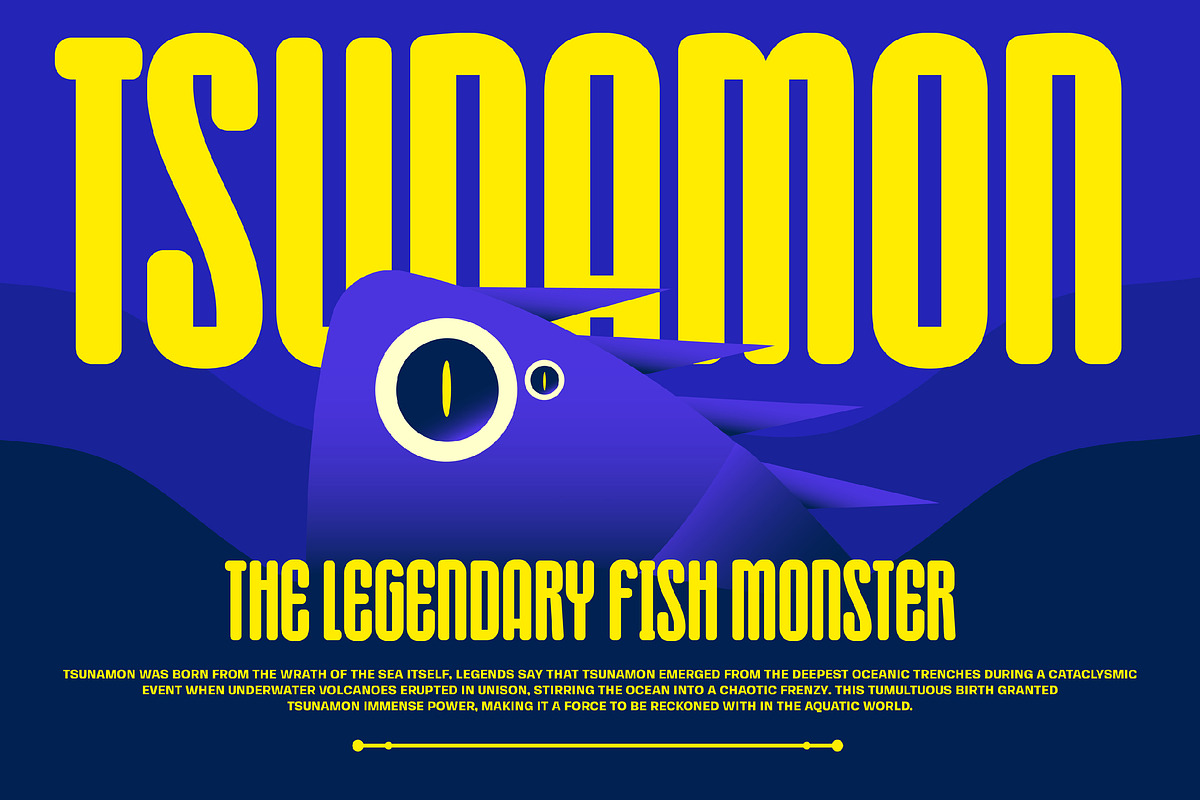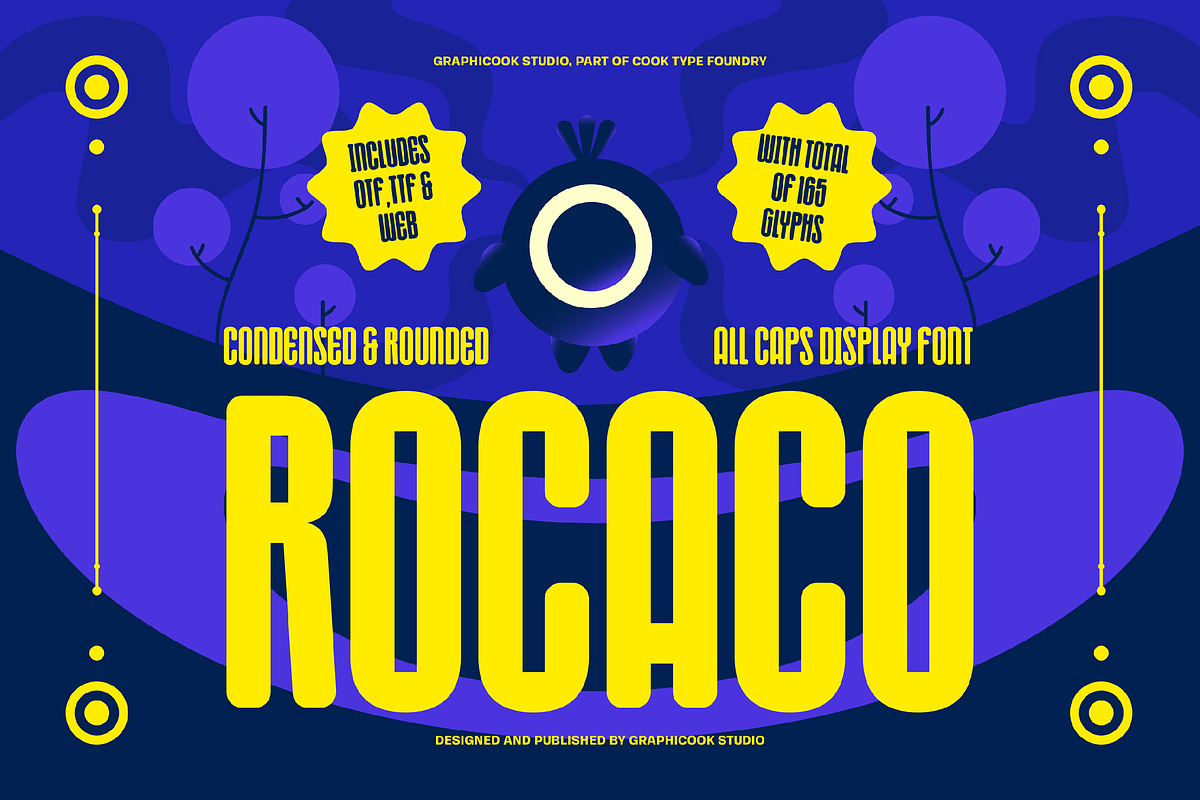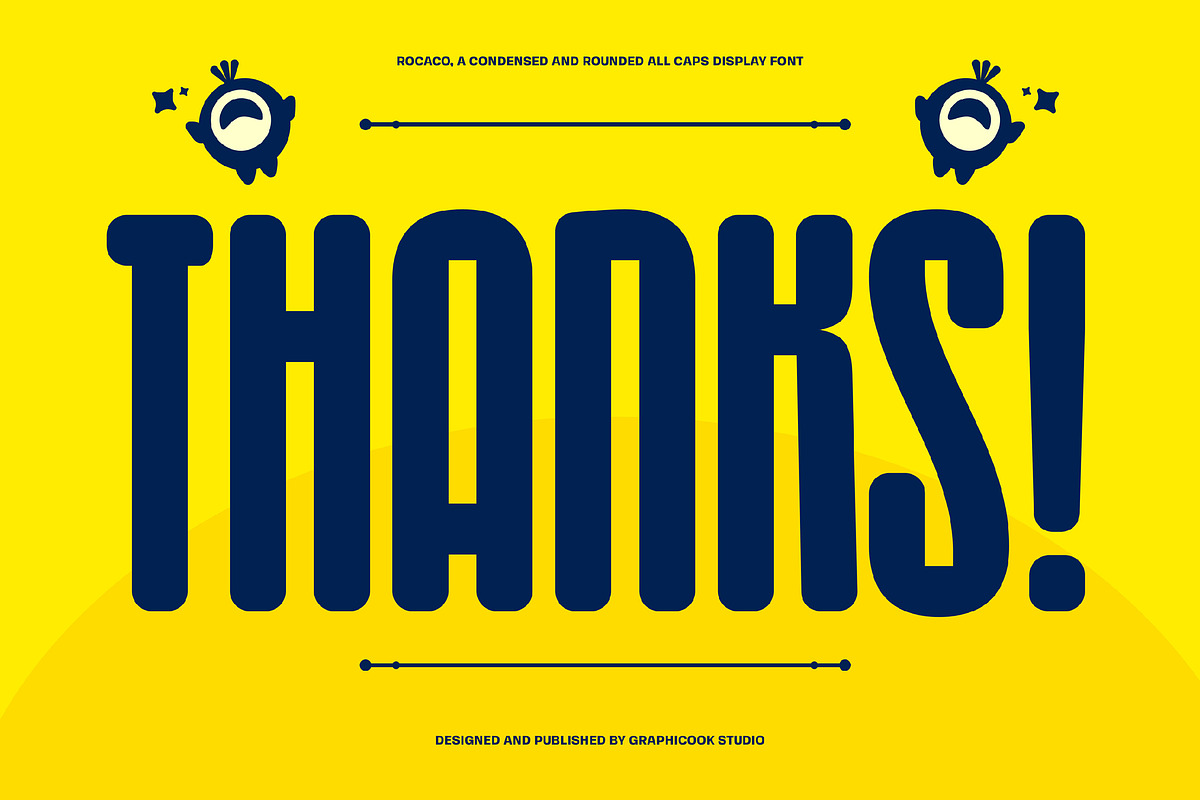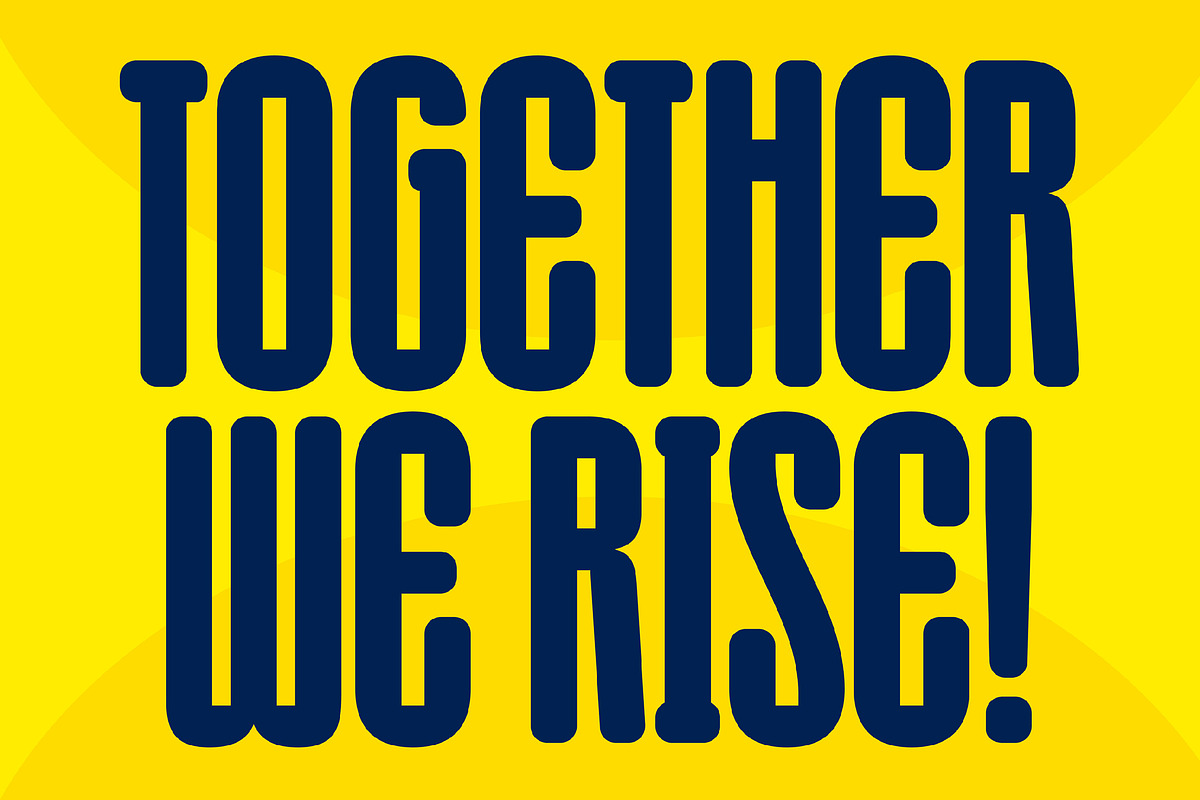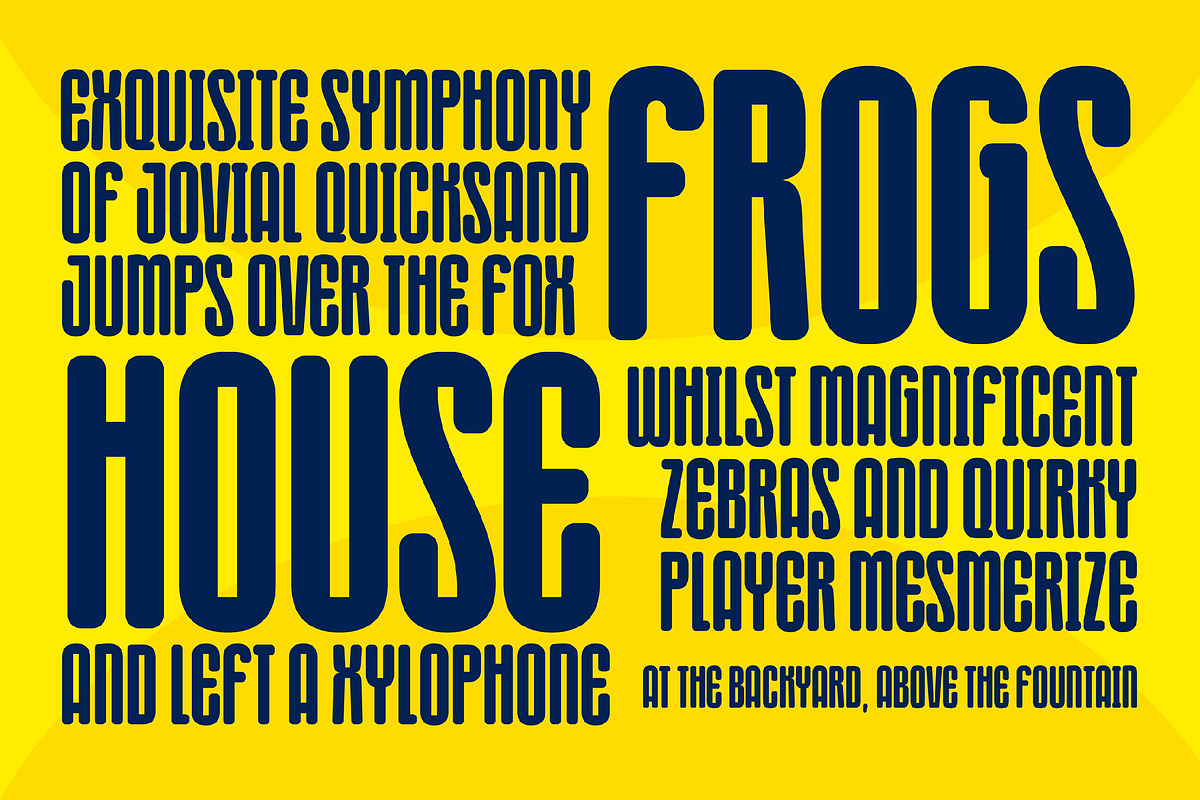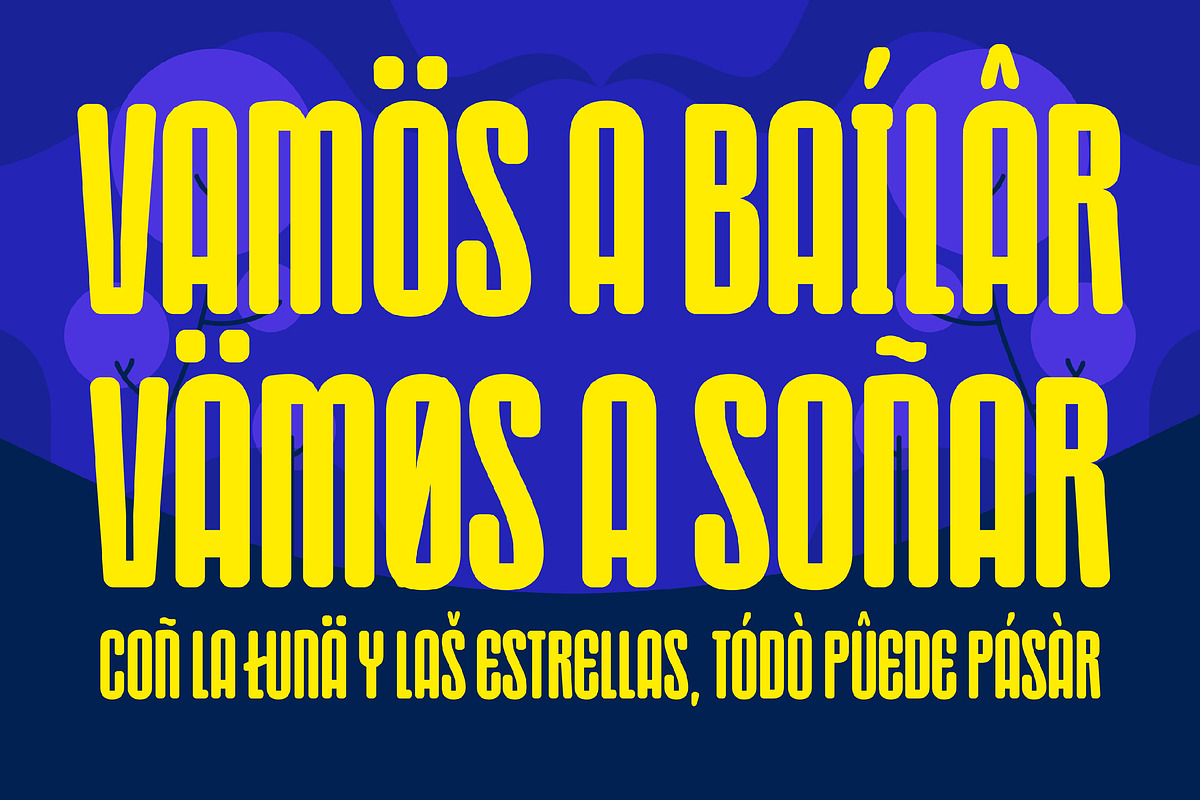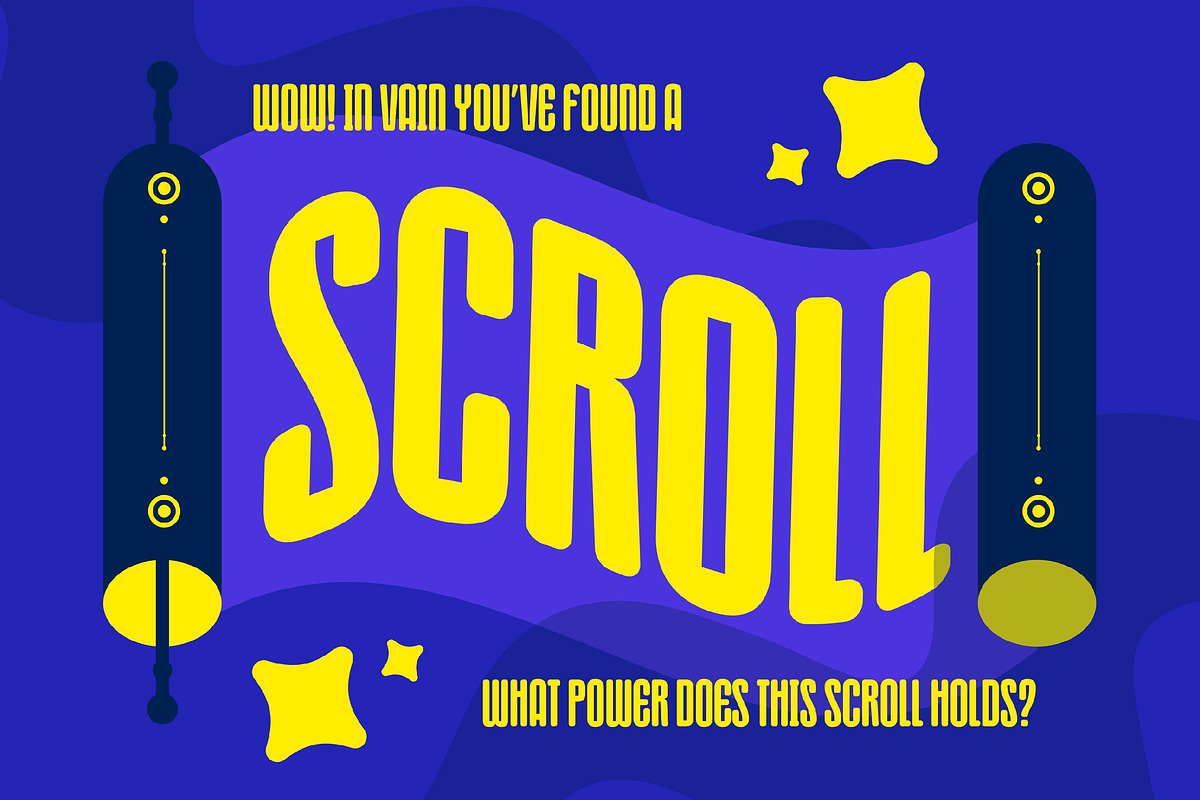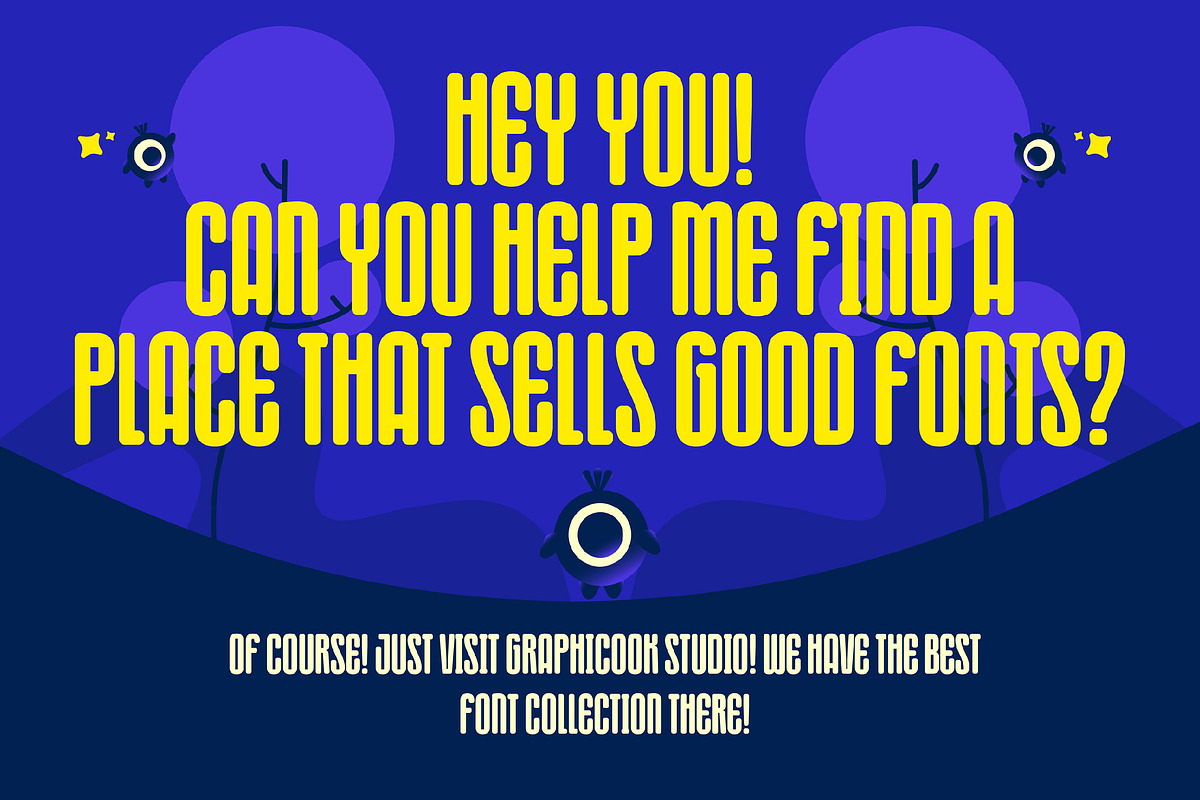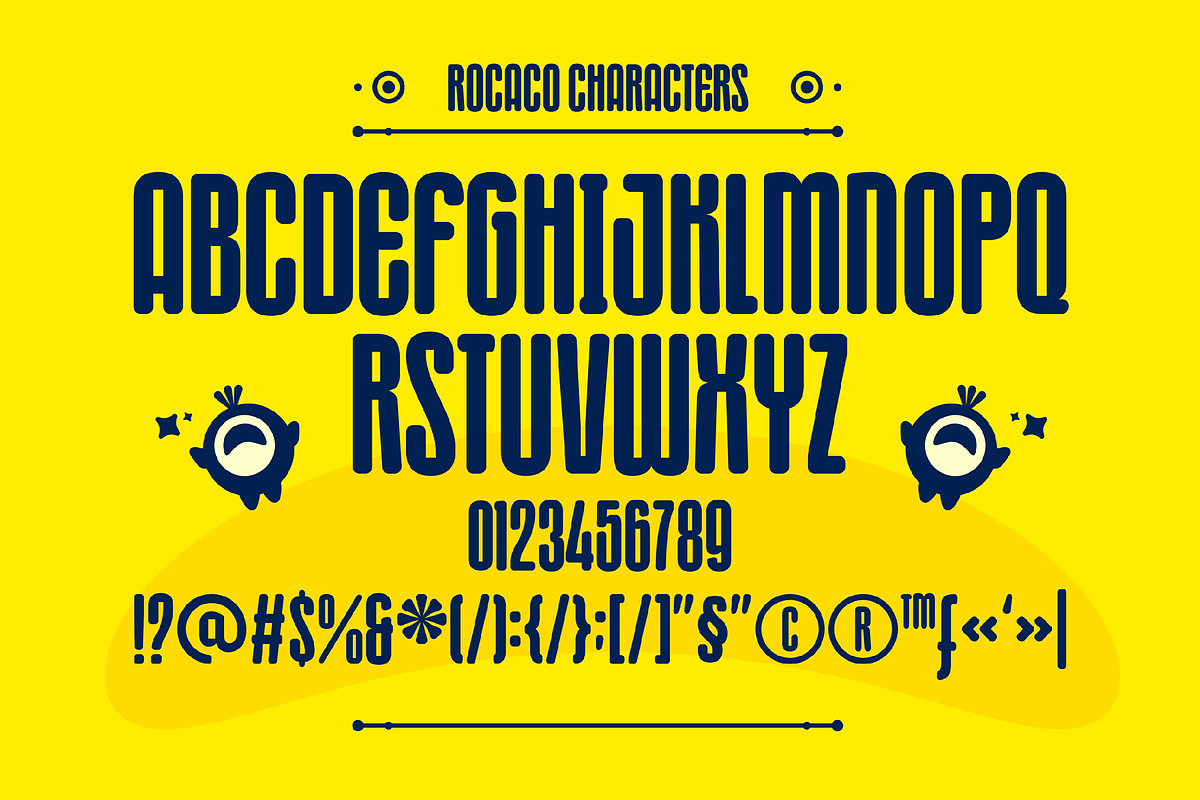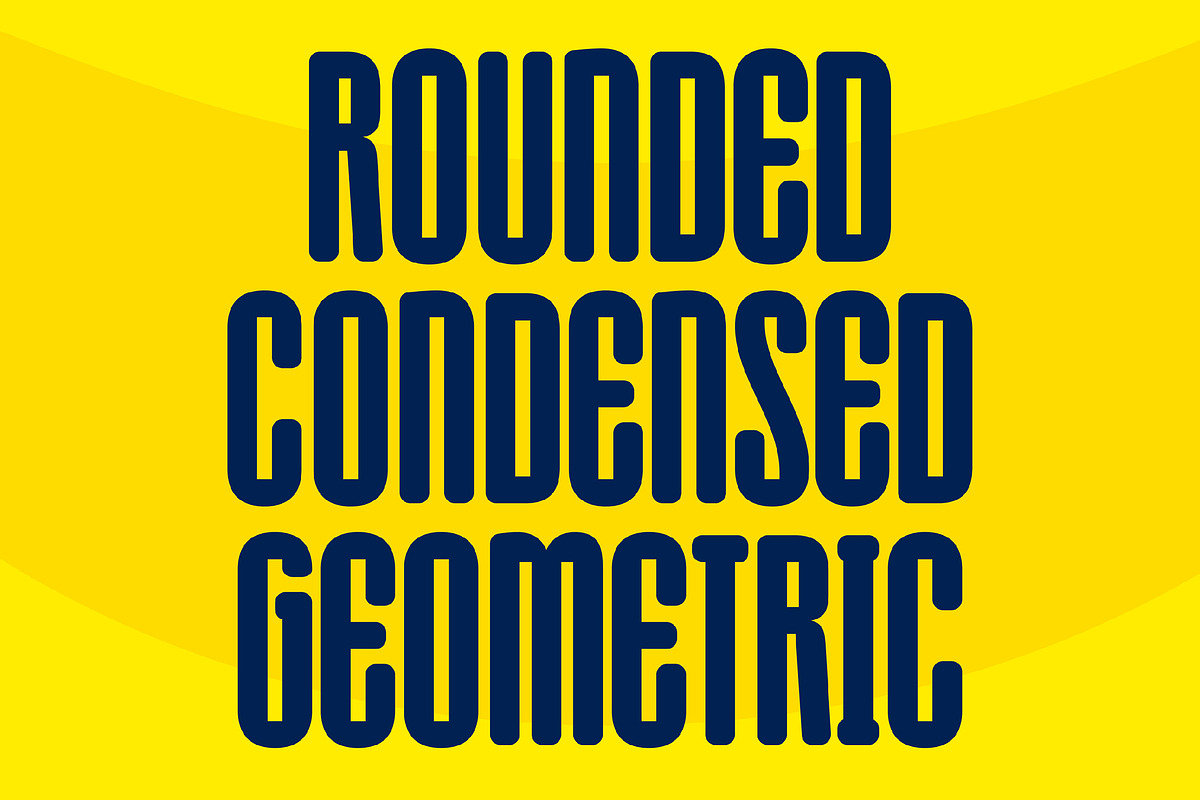
Rocaco
Introducing Rocaco Typeface: a condensed, rounded font that adds a playful and lively touch to your designs. Its versatile style makes it the perfect choice to boost any creative project!
Rocaco is perfect for headlines, logotypes, magazines, packaging, quotes, movies, games, cover albums, book covers, and flyers, it's a perfect solution for creating eye-catching designs that stand out in any context.